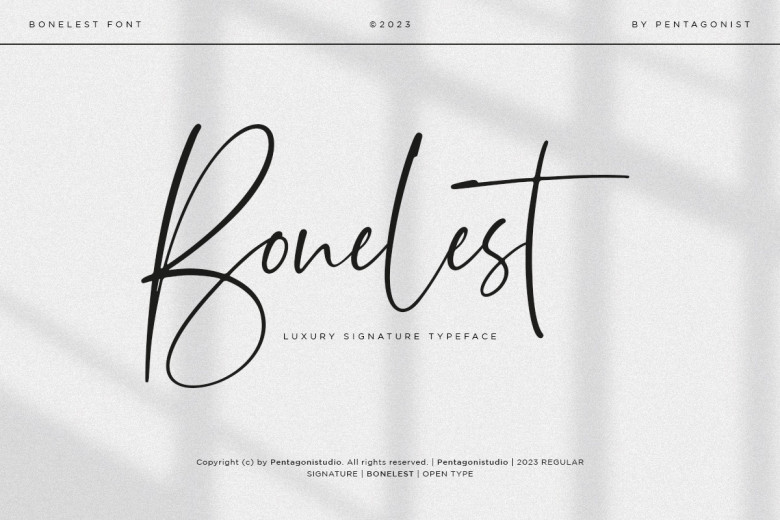
Bonelest Font
Bonelest is a romantic and deluxe signature font is a combination of characters designed to bring a captivating flair. The refined aspects of calligraphy in the font suggest large use in creative work such as invitation, event poster, theater ticket, and everything with luxury art form. in creative work such as invitation, event poster, theater ticket, and everything with luxury art form.
Bonelest Signature Script Font